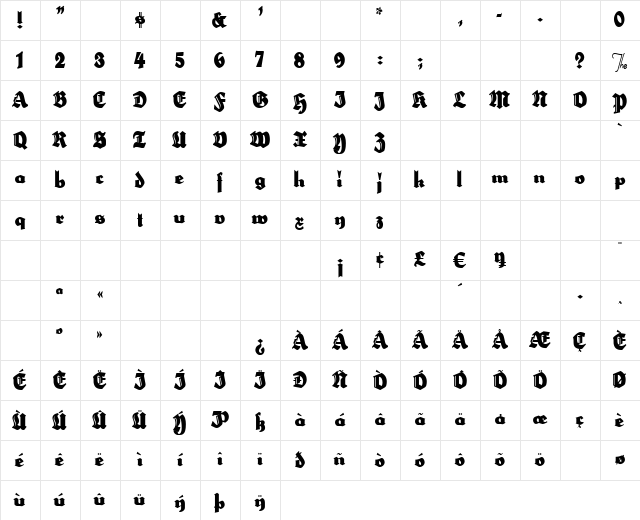
HerzogVonGraf Normal Free Font
HerzogVonGraf Normal
Design Context for HerzogVonGraf
HerzogVonGraf is a composed and adaptable typeface that performs quietly and consistently across a wide range of design contexts.